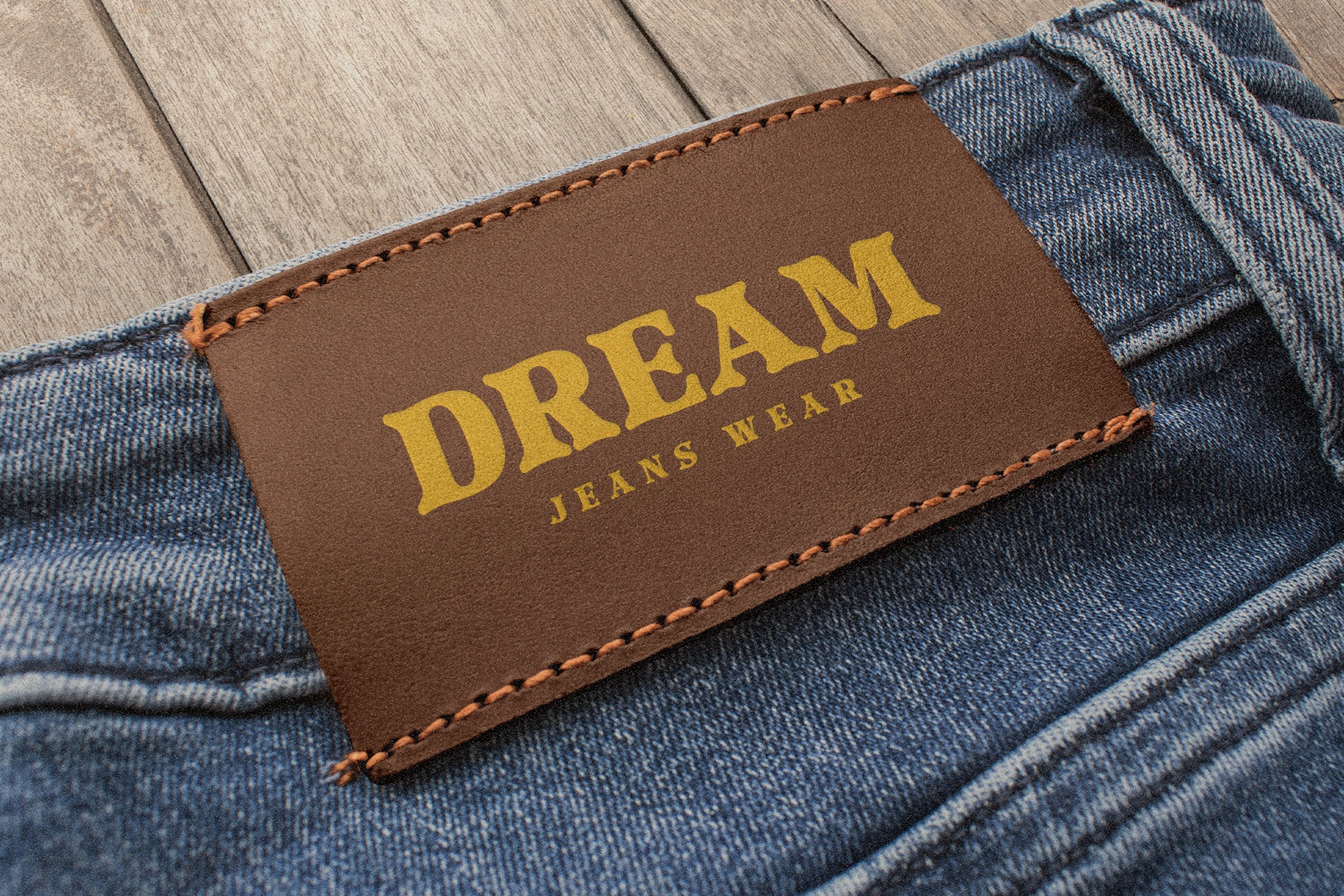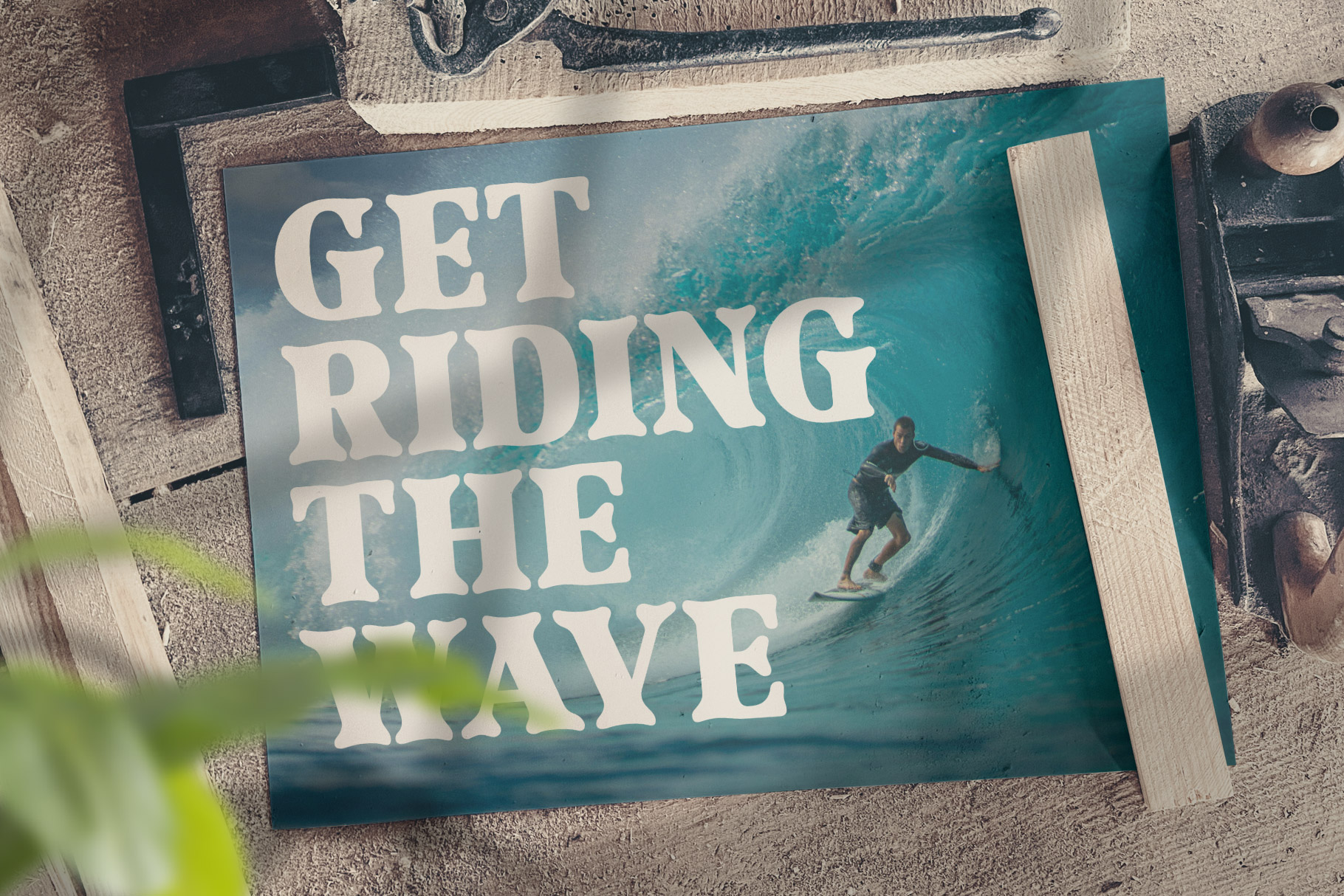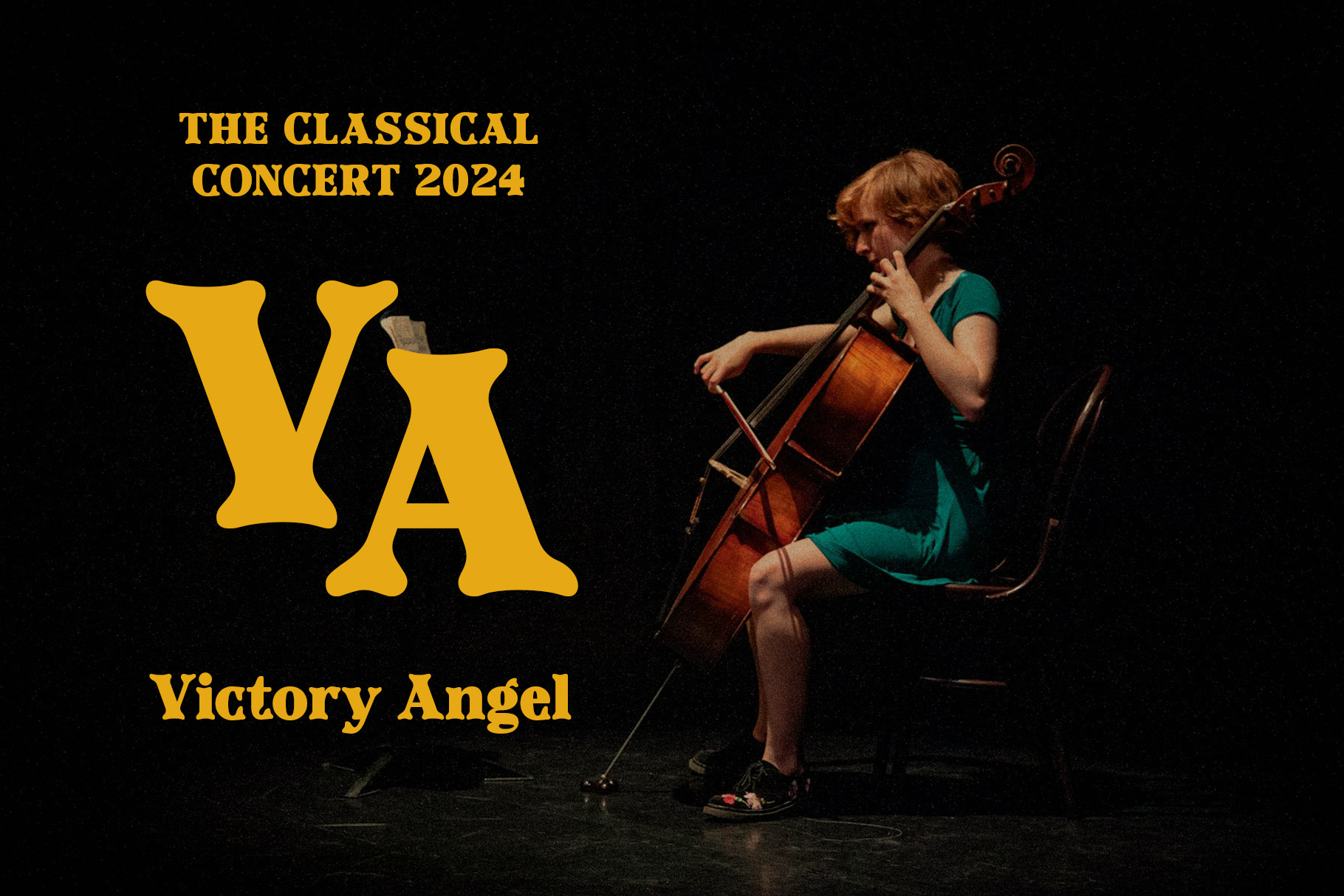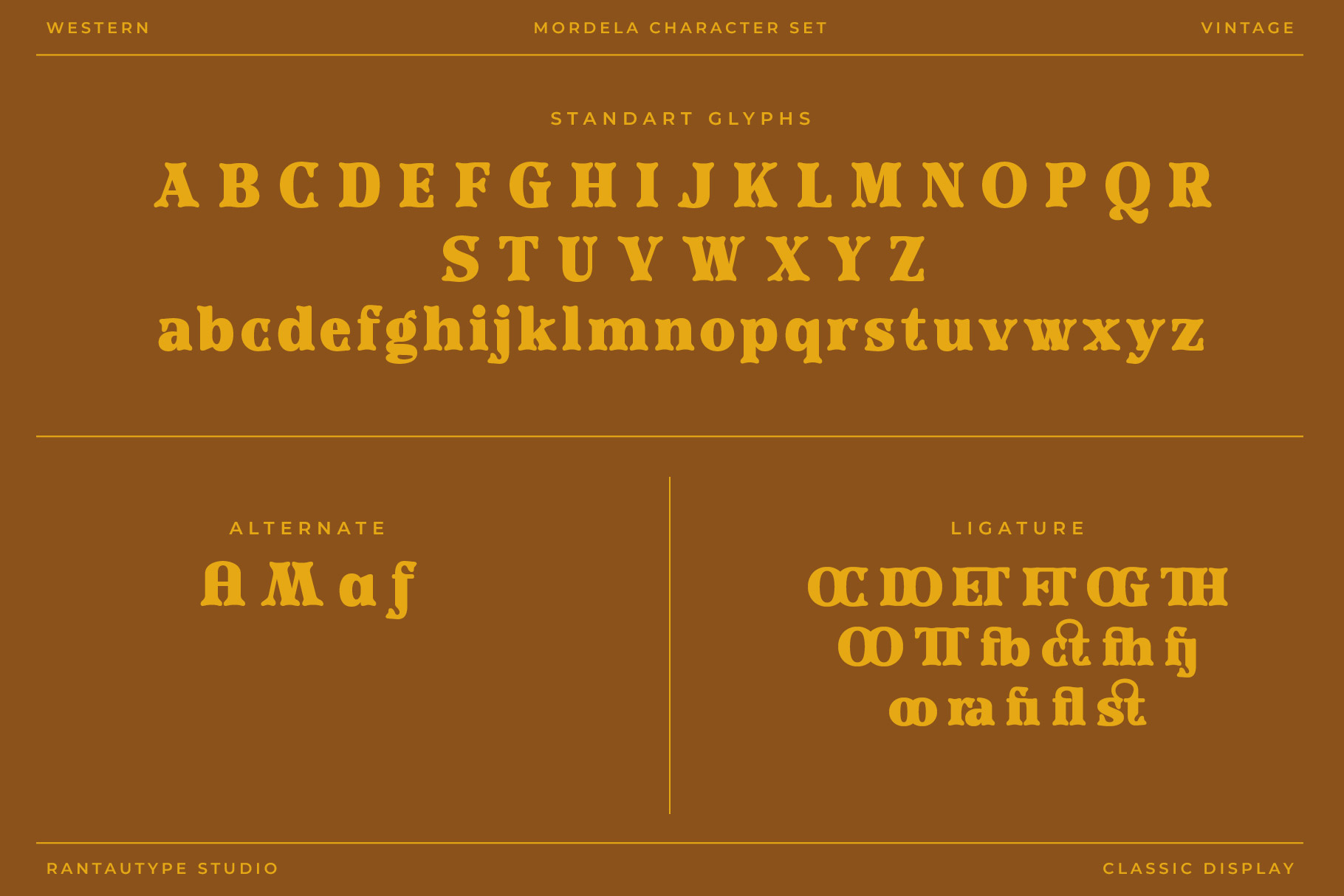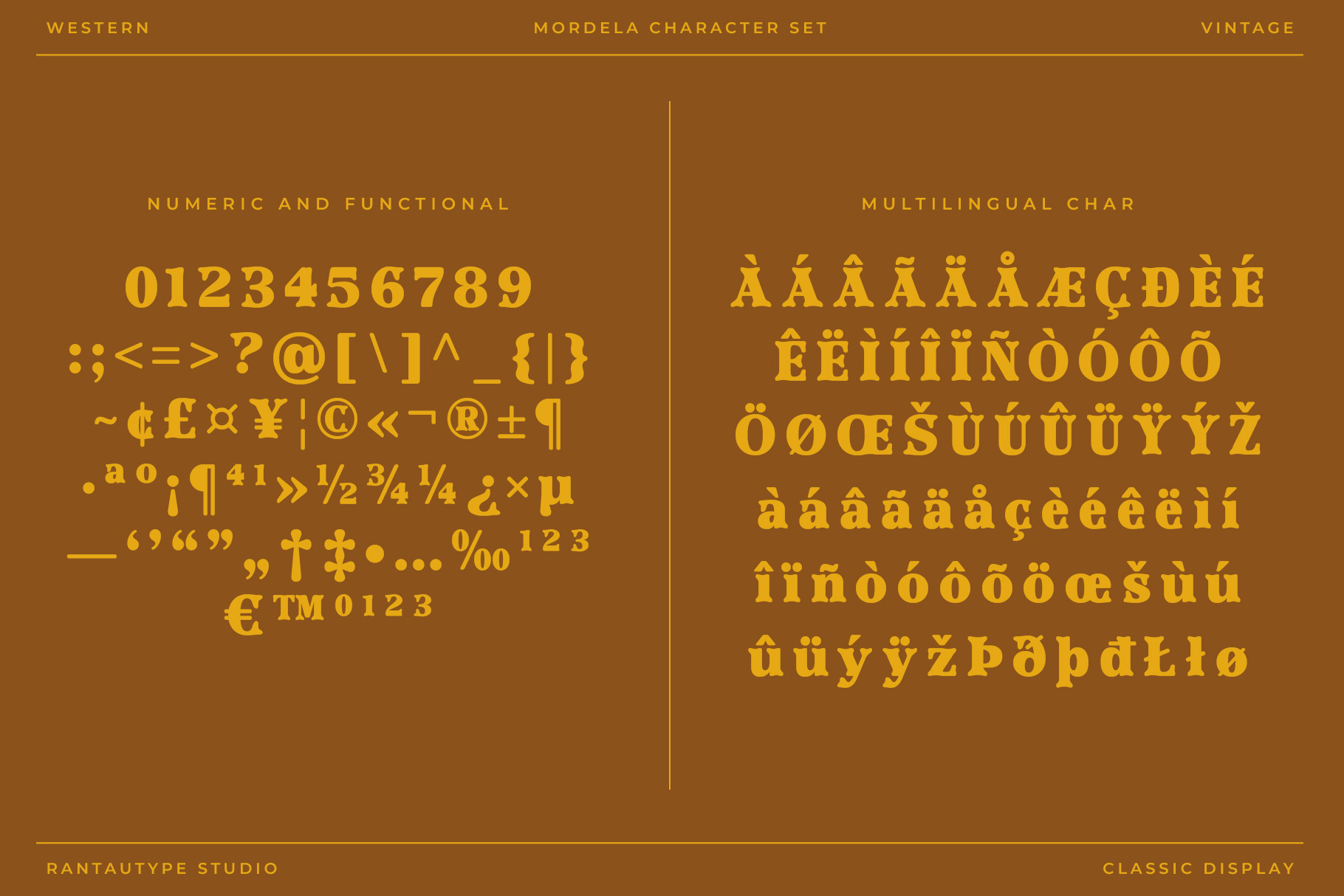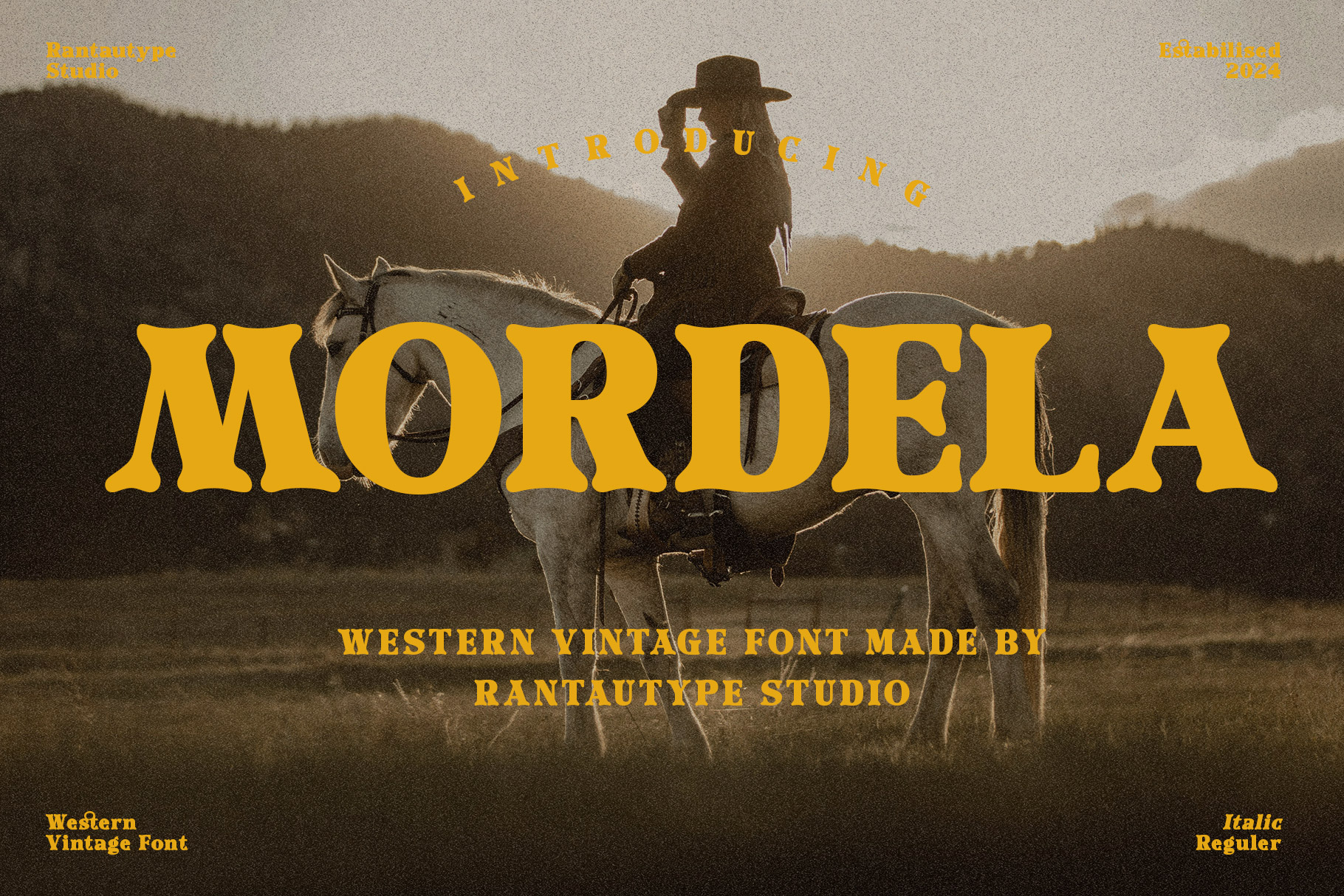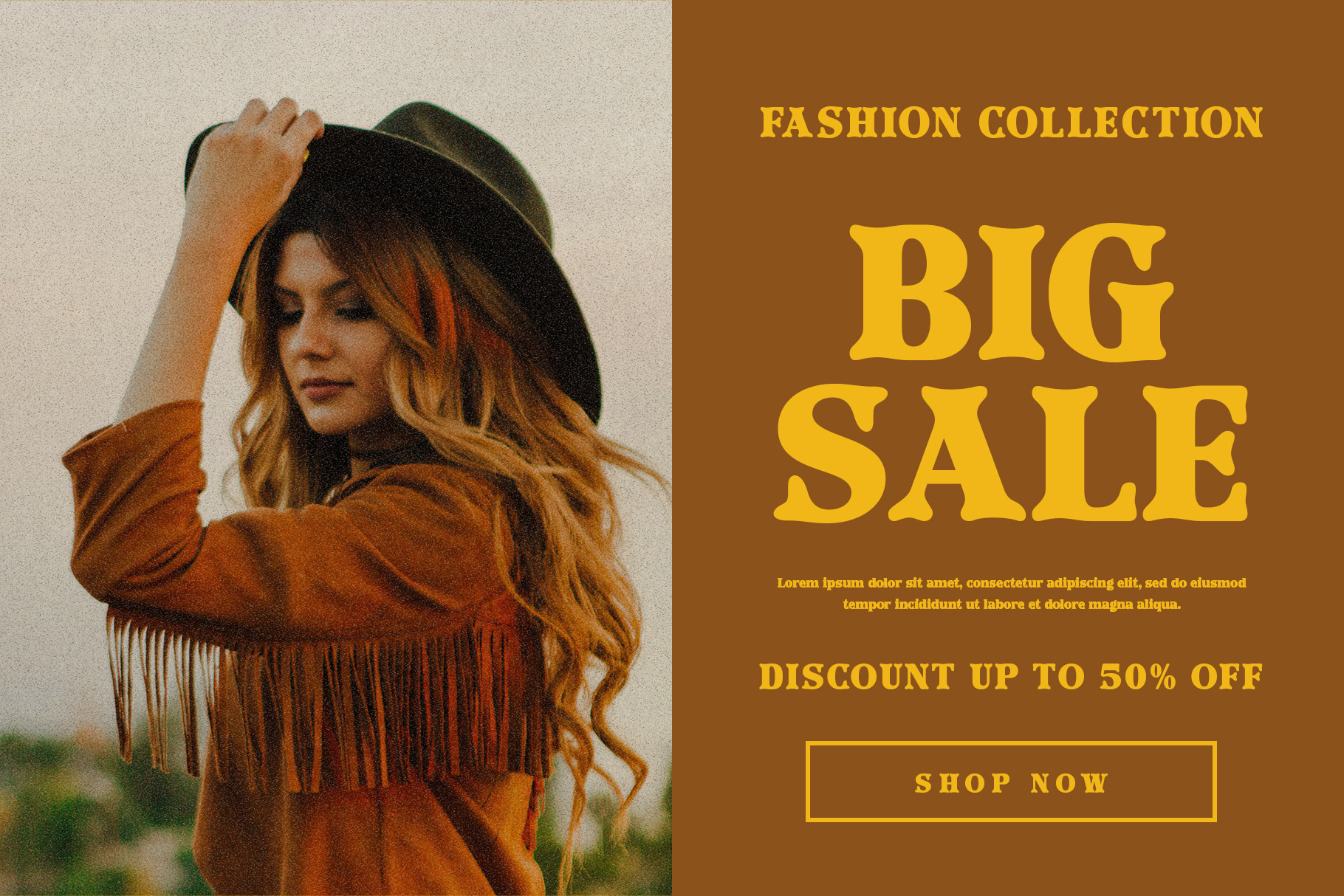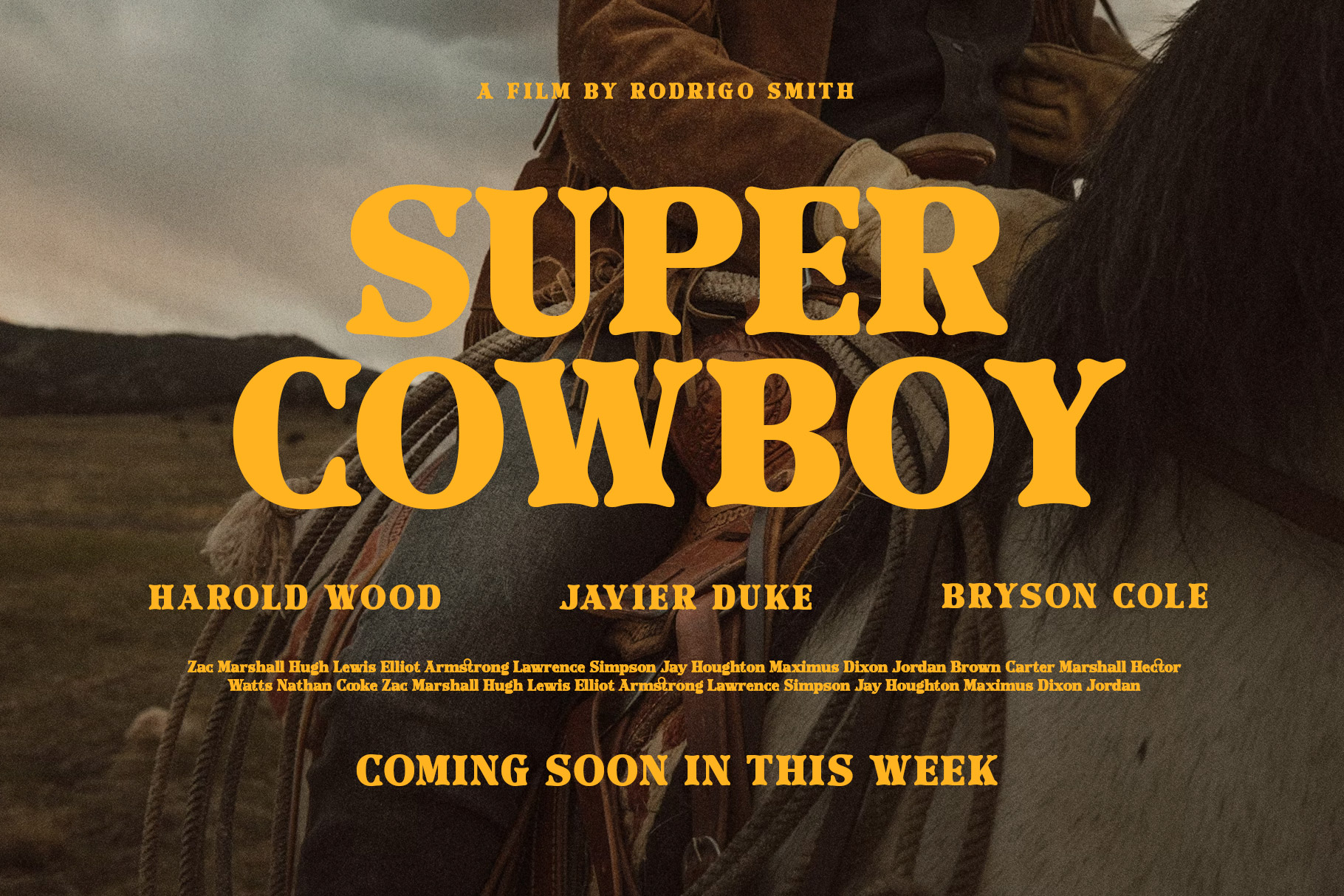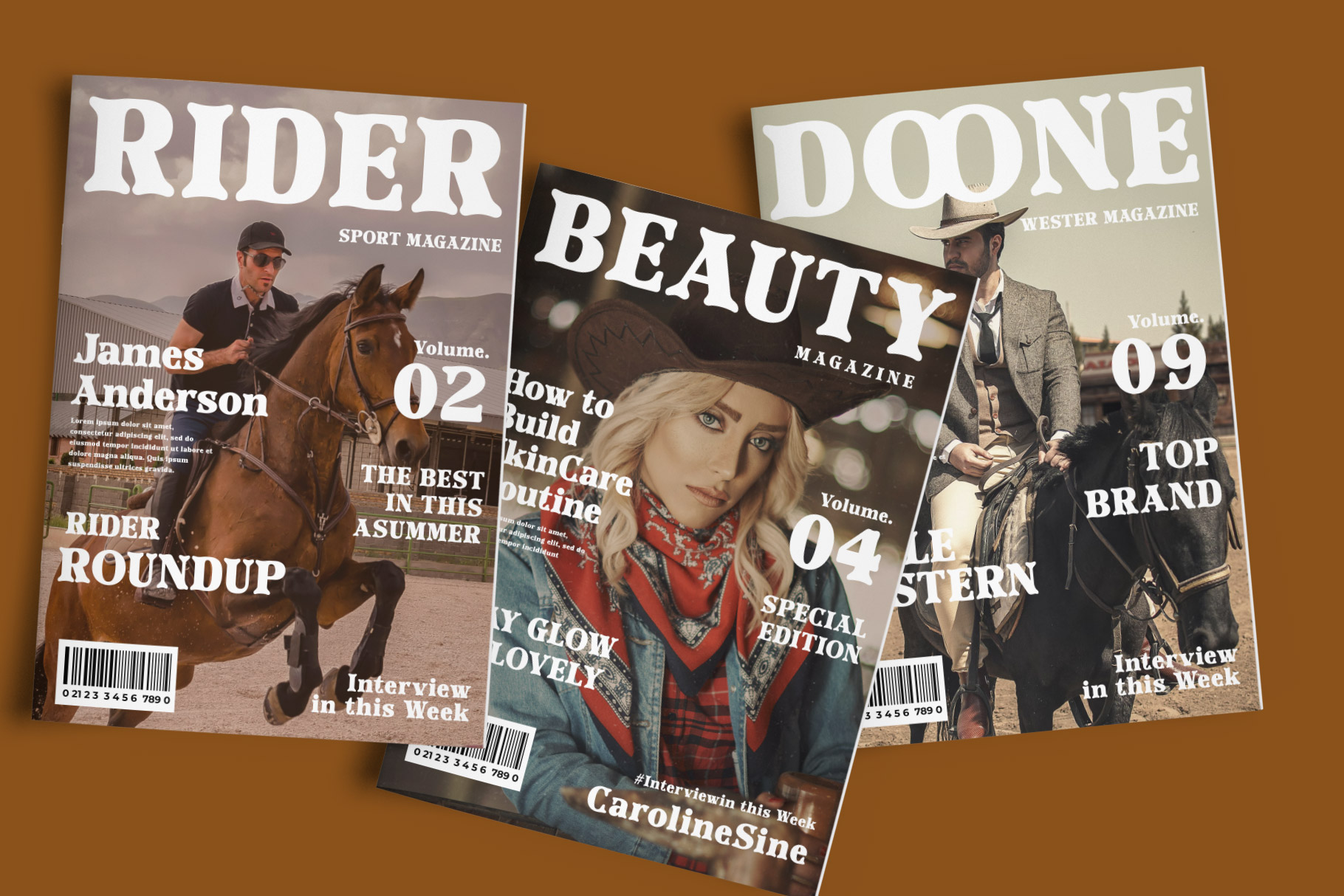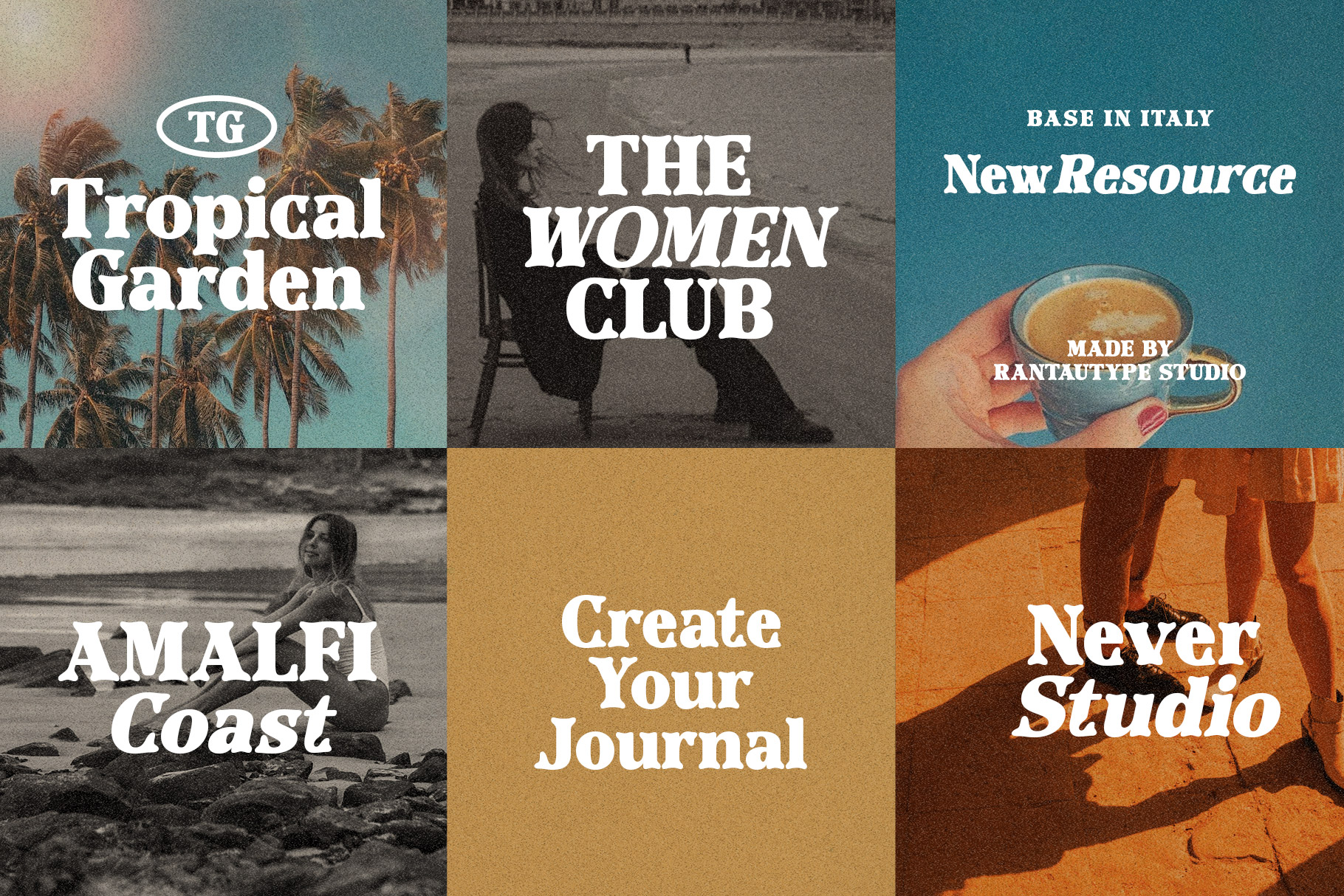
Mordela Western Vintage Font
Mordela is western vintage font inspire by eighteen cowboy poster. Mordela bring authentic character with bold and wildwest essence. Mordela is a perfectly choice for any creative endeavor, chic, lifestyle design such as logos, advertisements, stationery, branding project, display and magazine, invitation, corporate brand, product design, label, business project and many other project with western touch.